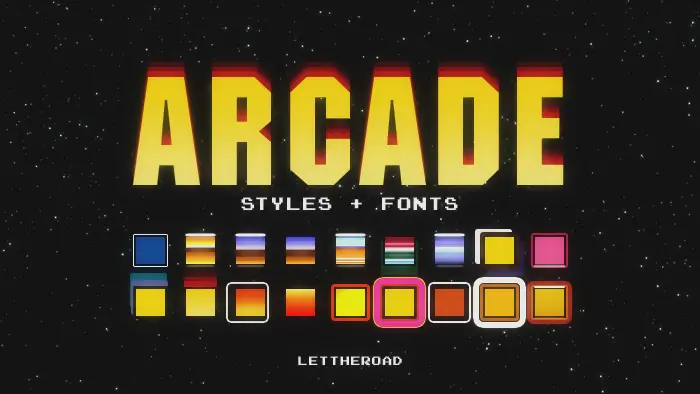
Arcade Pack – 18 Photoshop Styles & 27 Fonts
The Arcade Pack offers a vibrant collection of 27 unique fonts designed to bring a playful and retro aesthetic to your projects. Perfect for game design, branding, and promotional materials, these fonts encapsulate the spirit of classic arcade games.
• Ideal for logos and branding projects that require a fun and nostalgic touch.
• Great for web design, especially for gaming-related websites.
• Use in print materials like posters, flyers, and merchandise to capture attention.